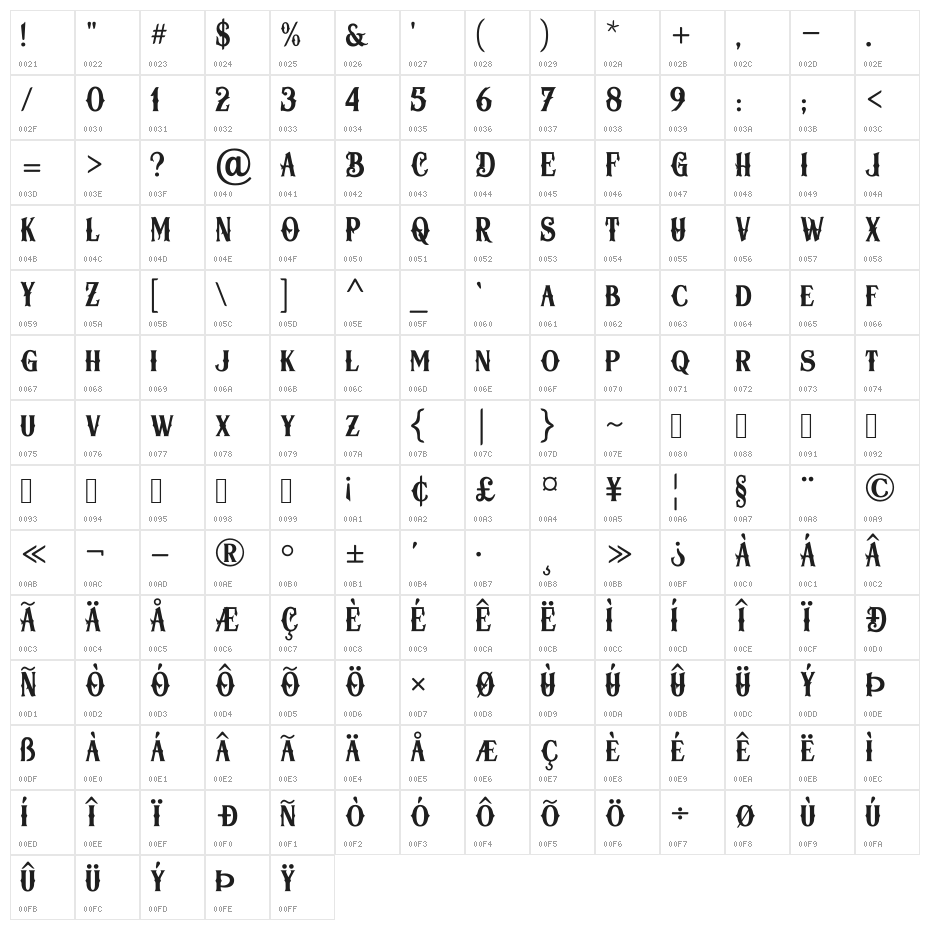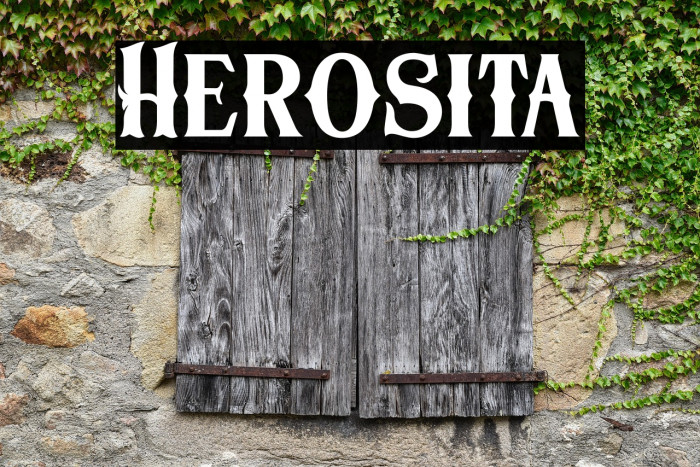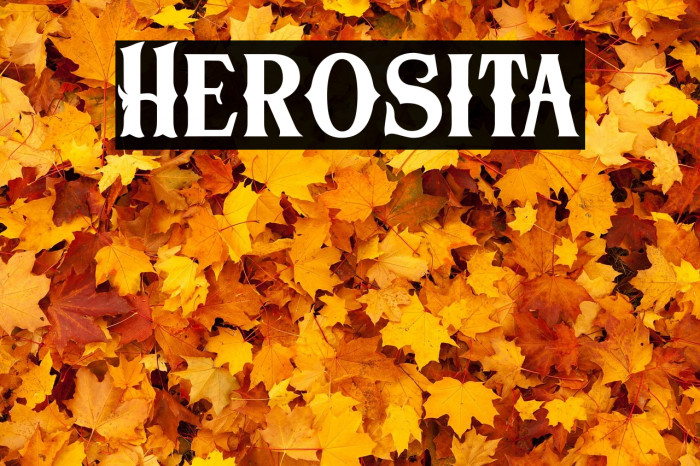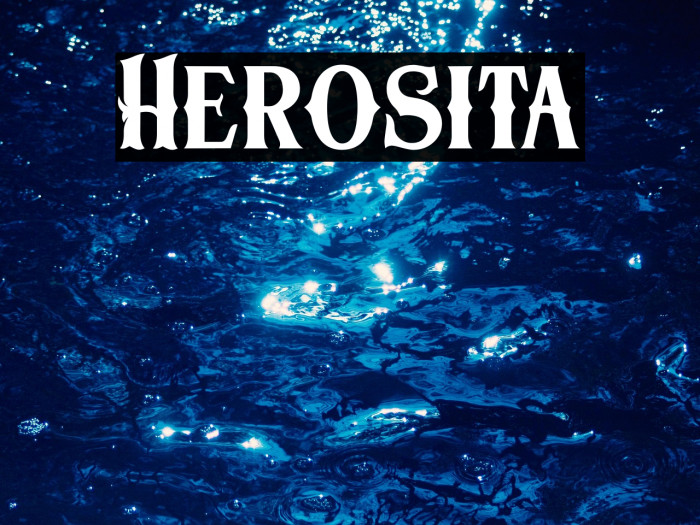
Herosita Font
Herosita Description
This font features a bold and dramatic style with strong, angular serifs and a distinct blackletter influence. The uppercase letters are particularly striking, with ornate flourishes that add a sense of grandeur and historical depth. The lowercase letters maintain this theme, offering a cohesive look throughout the typeface. Numbers and special characters are designed with the same attention to detail, ensuring consistency across all elements. The overall appearance is both authoritative and decorative, making it suitable for projects that require a touch of elegance and tradition.